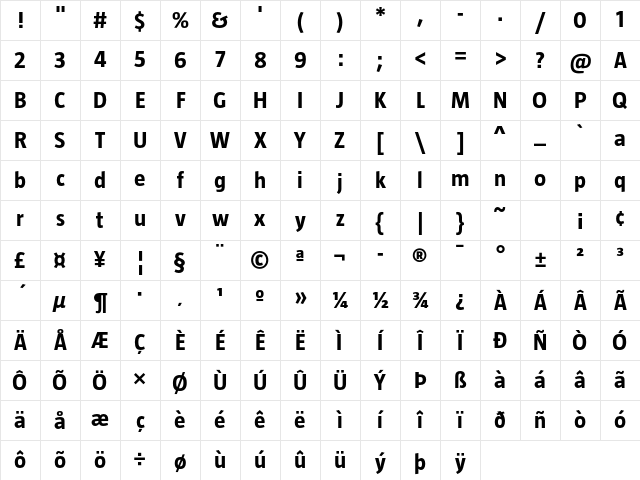
Complete Taz Bold glyph index. Displaying only characters natively supported by Taz Bold font.
Taz is a composed and adaptable typeface that performs quietly and consistently across a wide range of design contexts. Its bold stroke weight gives it real presence on the page.